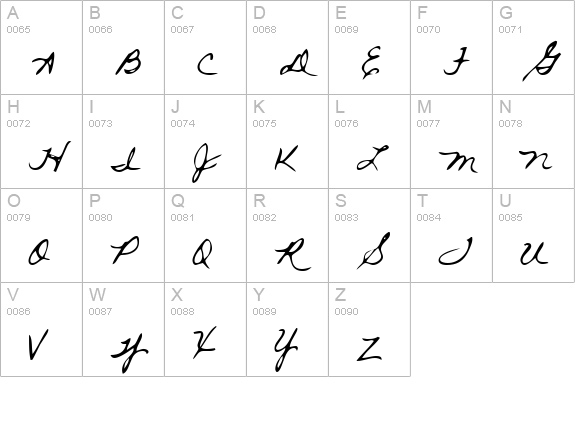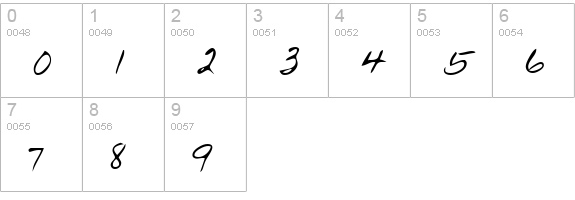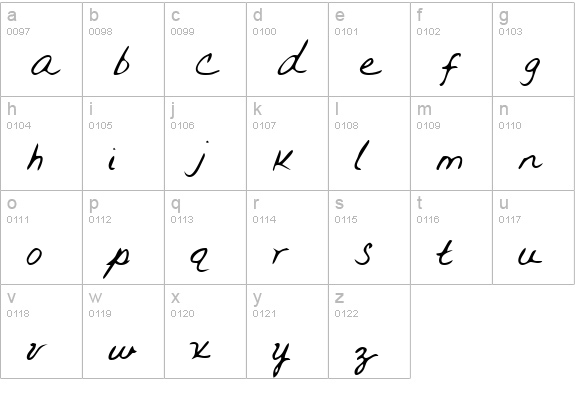
FannysHand Regular Font Details
FannysHand Regular is the standard, neutral variant in the FannysHand typeface family \xE2\x80\x94 well suited to general body text, paragraphs, and standard typographic work.
FannysHand Regular font is a charming and whimsical typeface that exudes a sense of handmade creativity and personal touch. With its playful and friendly appearance, this font is perfect for adding a unique and welcoming touch to various design projects. The fluid strokes and irregular shapes give FannysHand Regular a distinctive look that is both fun and engaging. This font is freely available to download at FontsMarket.com, making it easily accessible for designers and creatives looking to add a touch of individuality to their work. Whether you're designing invitations, posters, or branding materials, FannysHand Regular is sure to bring a touch of warmth and personality to your projects. Add a dash of creativity and a hint of whimsy to your designs with FannysHand Regular font.